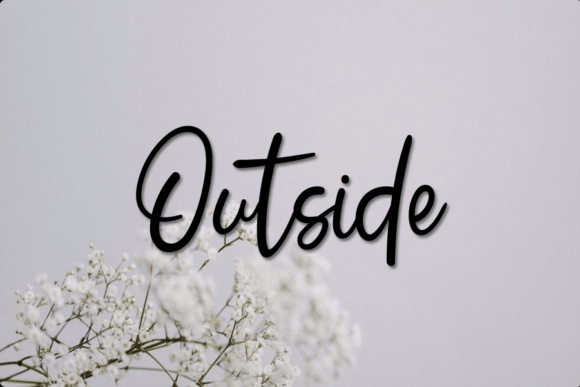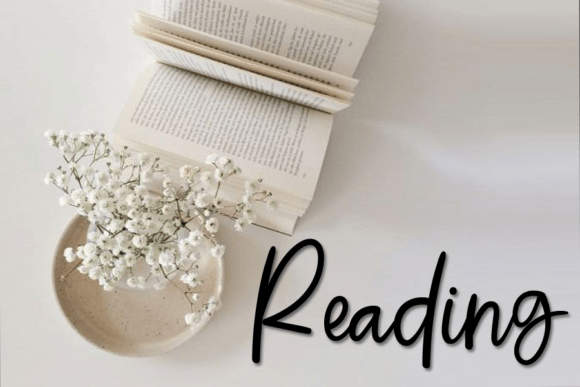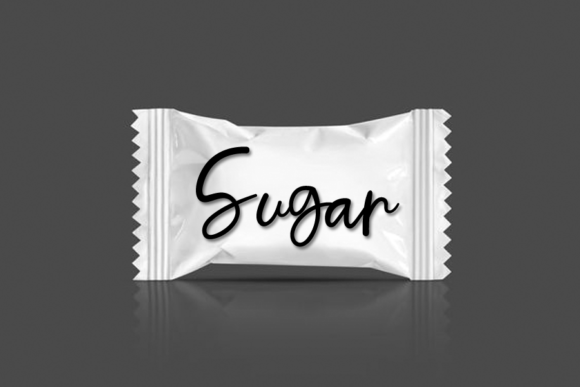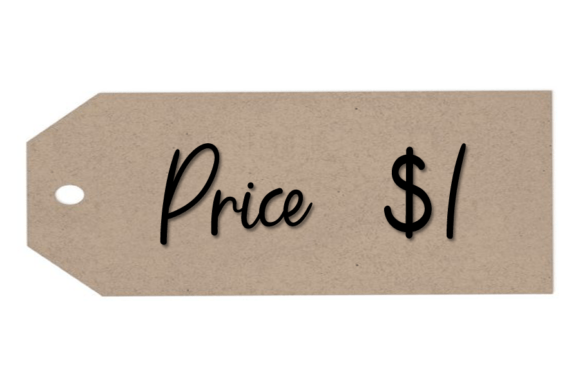
About Otnair Font
Otnair Font is a classic handwritten typeface with a casual and spontaneous freestyle design. It has an effortlessly natural flow, making it ideal for a wide range of creative applications. Whether you’re working on a branding package or designing a digital product, Otnair Font adds a relaxed and approachable feel to your project.
Crafted to reflect the look of authentic handwriting, OtnairFont blends simplicity with personality. This versatility allows it to perform well across both print and screen formats. Whether used for logos, headlines, or social media graphics, the font remains clean, readable, and full of character.
Use OtnairFont for corporate identity materials, t-shirts, poster design, music branding, movie titles, gaming visuals, or editorial work like magazines and books. It also fits perfectly into comics, cartoons, YouTube thumbnails, Instagram posts, and website design, giving each piece a hand-crafted, personal touch.
OtnairFont brings an easygoing style that feels both creative and intentional. Designers looking for a light, handwritten script that can be both professional and playful will find this font a reliable choice. Add OtnairFont to your font collection and make your next design more expressive and human.